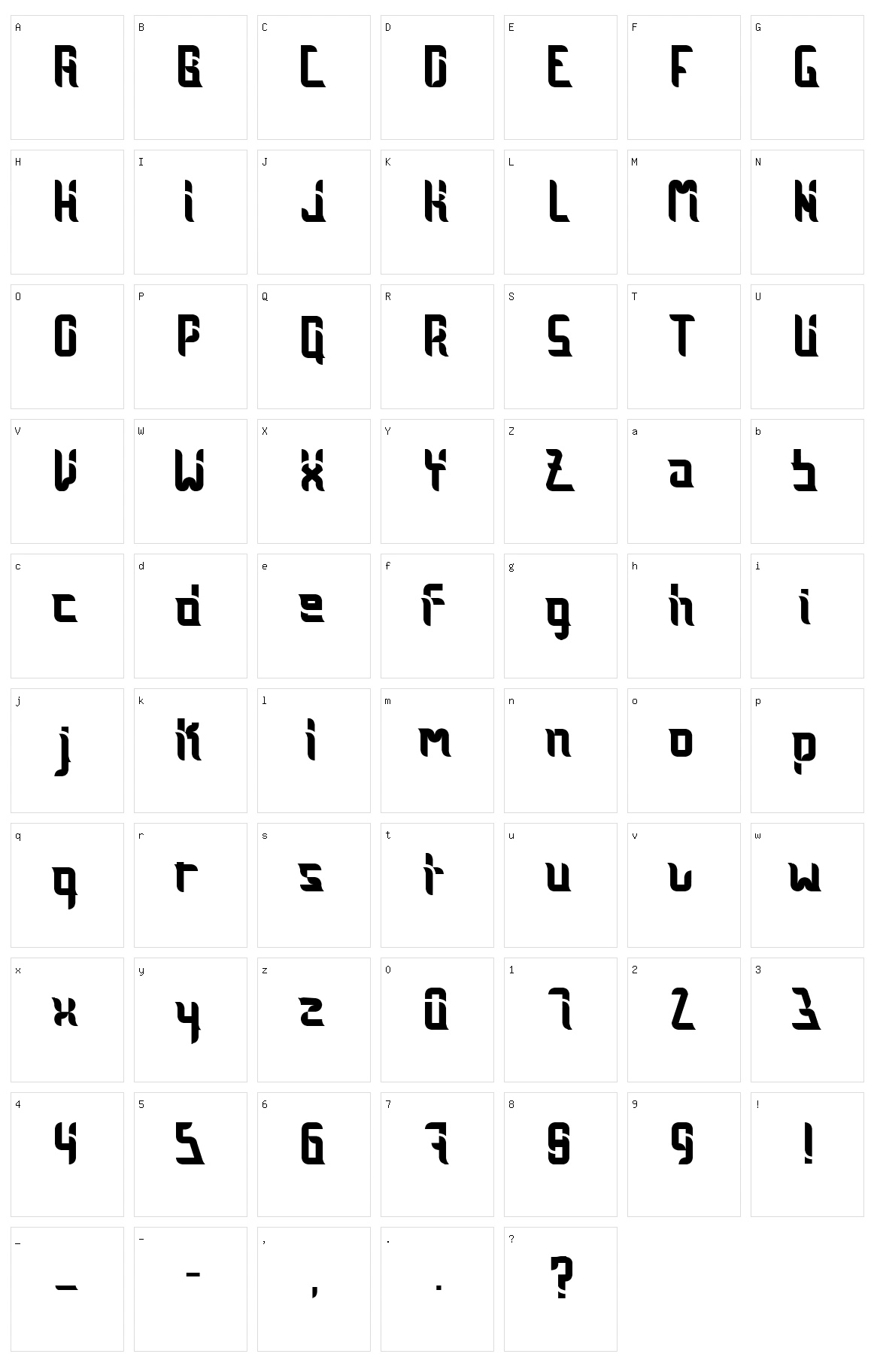
The free font Jent is carefully designed by Marco Bergamini Pzeros, showcasing a thoughtful balance of creativity and usability and belongs to the Techno font family. When you download the ZIP file, it contains only 83.67 KB of font files, making it lightweight and quick to download. Please review the license details below to understand permitted usage and distribution rights. If license information is not available, we recommend using this font for personal projects only or contacting the author directly for commercial usage permissions.